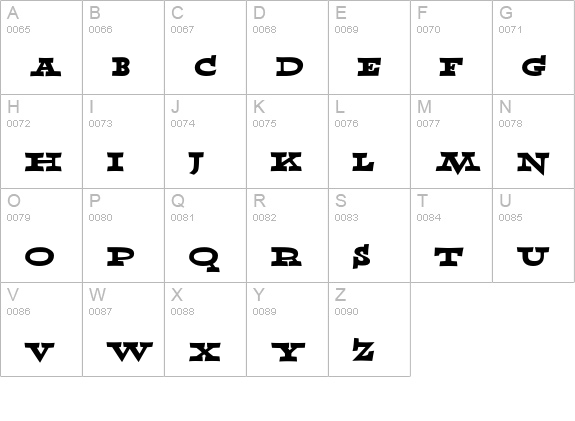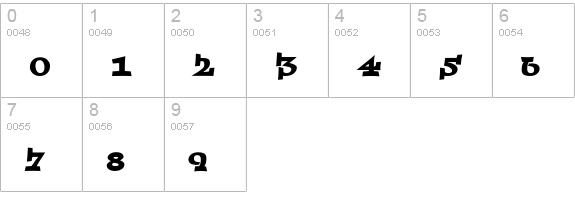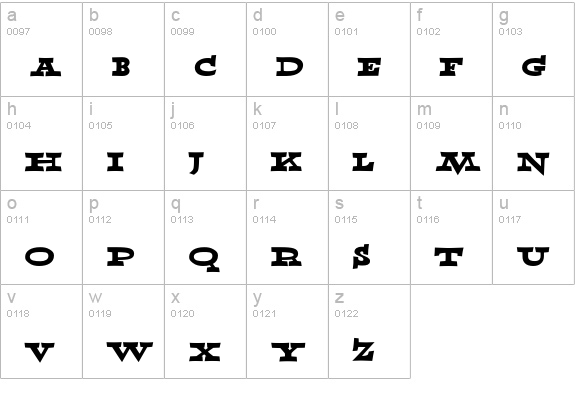
AblefontOutlaw Font Details
Introducing AblefontOutlaw, a bold and unique font that exudes a rebellious and adventurous spirit. With its edgy design and rugged appeal, this font is perfect for adding a touch of daring flair to your projects. The strong and sturdy letterforms of AblefontOutlaw make it ideal for headlines, logos, and other display purposes where you want to make a bold statement. What's even better is that AblefontOutlaw is available for free download at FontsMarket.com. This means you can unleash your creativity without any cost barriers, making this font accessible to all who seek to add a touch of outlaw charm to their designs. Whether you're working on a poster, website, or branding project, AblefontOutlaw is sure to make a lasting impression with its fearless and distinctive style. Download AblefontOutlaw today and let your creativity run wild with this rugged and rebellious font that dares to stand out from the crowd.